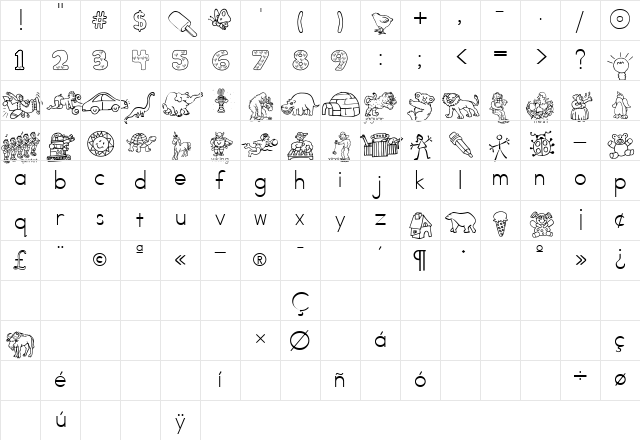
Complete AbcPhonicsTwo Regular glyph index. Displaying only characters natively supported by AbcPhonicsTwo Regular font.
AbcPhonicsTwo is a composed and adaptable typeface that performs quietly and consistently across a wide range of design contexts.